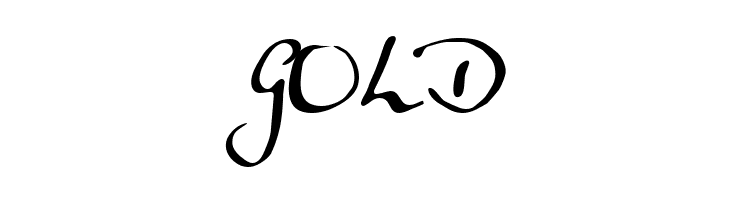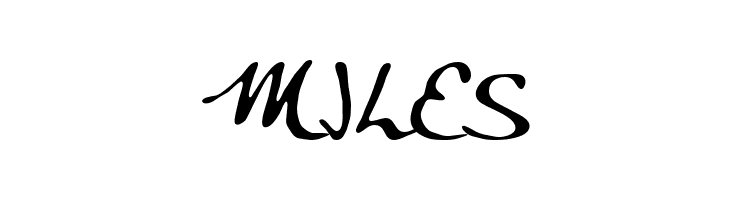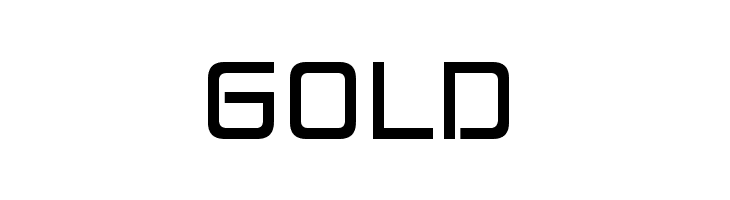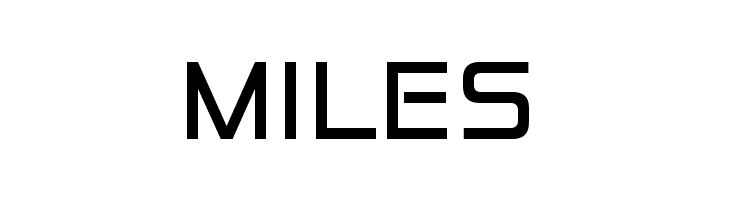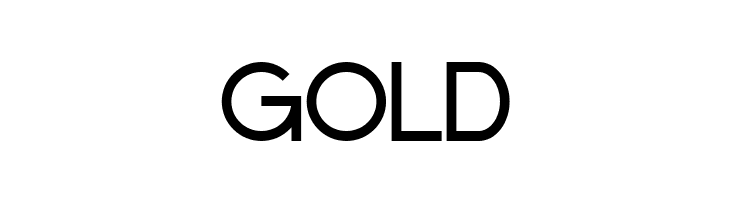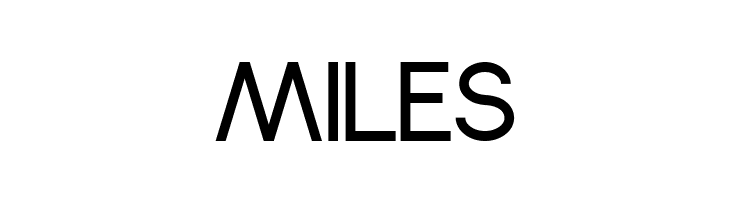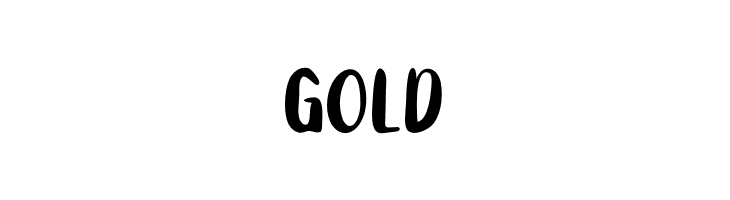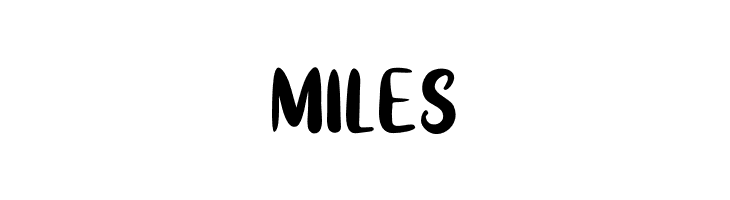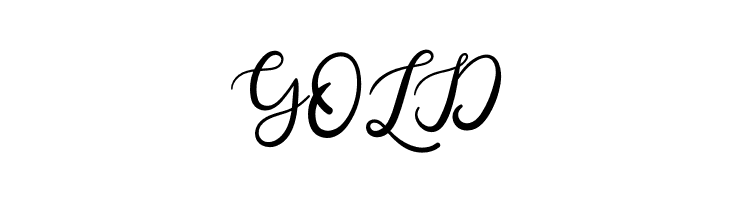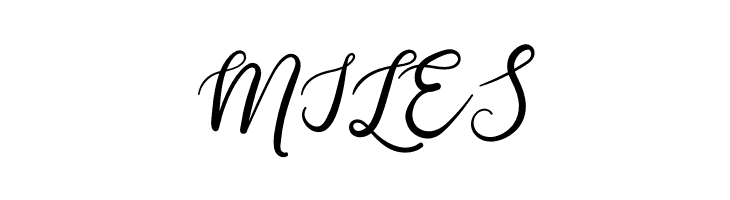
( Fonts by Brithos Type - Personal-use only. For commercial use please contact owner. ) A flowing, cursive script font with elegant loops and swashes. Download 47 Downloads@WebFont
( Fonts by Patria Ari Typestudio - Patria Ari - Personal-use only. For commercial use please contact owner. ) A modern, geometric sans-serif font with clean lines and balanced proportions. Download 66 Downloads@WebFont
( Fonts by Gustavo Paz - Personal-use only. For commercial use please contact owner. ) A modern, geometric font with a semi-square structure and uniform stroke width. Download 1714 Downloads@WebFont
( Fonts by Asd Studio - Ghazi Humam Fauzan - Personal-use only. For commercial use please contact owner. ) A graceful script font with flowing, interconnected strokes and high contrast. Download 63 Downloads@WebFont
( Fonts by Colative Studio - Personal-use only. For commercial use please contact owner. ) A dynamic and elegant script font with fluid, connected letterforms. Download 37 Downloads@WebFont
( Fonts by Rafaela de Conto - Personal-use only. For commercial use please contact owner. ) A bold, geometric font with high contrast and artistic design elements. Download 47 Downloads@WebFont
( Fonts by Pen Culture - Revo Farisky - Personal-use only. For commercial use please contact owner. ) A dynamic and fluid script font with elegant, flowing strokes. Download 93 Downloads@WebFont
( Fonts by PutraCetol Studio - www.putracetol.com - Personal-use only. For commercial use please contact owner. ) A cursive, flowing font with elegant, sweeping lines and artistic flair. Download 26 Downloads@WebFont
( Fonts by Din Studio - Donis Miftahudin - Personal-use only. For commercial use please contact owner. ) A sophisticated script font with flowing, cursive characters and high contrast strokes. Download 633 Downloads@WebFont
( Fonts by Letterhend Studio - Hendry Juanda - Personal-use only. For commercial use please contact owner. ) A lively and flowing script font with elegant, interconnected letters. Download 70 Downloads@WebFont
( Fonts by HerDesign - Herman Syah - Personal-use only. For commercial use please contact owner. ) A modern, elegant script font with intricate loops and smooth curves. Download 36 Downloads@WebFont
( Fonts by StringLabs - stringlabscreative.com - Personal-use only. For commercial use please contact owner. ) A whimsical, handwritten font with flowing, interconnected letters and dynamic strokes. Download 32 Downloads@WebFont
( Fonts by 611 Studio - Rijal Muttaqin - Personal-use only. For commercial use please contact owner. ) A modern, geometric sans-serif font with excellent readability. Download 121 Downloads@WebFont
( Sudar Moko ) A modern, geometric sans-serif font with smooth, rounded edges. Download 357 Downloads@WebFont
( Fonts by Masanis Studio - Naufal Anis - Personal-use only. For commercial use please contact owner. ) A graceful and elegant script font with fluid, cursive strokes. Download 41 Downloads@WebFont
( Fonts by StringLabs - stringlabscreative.com - Personal-use only. For commercial use please contact owner. ) A flowing, cursive script font with elegant, interconnected characters. Download 23 Downloads@WebFont
( Fonts by StringLabs - stringlabscreative.com - Personal-use only. For commercial use please contact owner. ) A flowing, elegant script font with interconnected cursive letters. Download 252 Downloads@WebFont
( Fonts by blue studio09 - Personal-use only. For commercial use please contact owner. ) A modern, elegant script font with flowing cursive letterforms. Download 402 Downloads@WebFont
( Fonts by blue studio09 - Personal-use only. For commercial use please contact owner. ) A bold, playful handwritten font with rounded, slightly irregular letterforms. Download 499 Downloads@WebFont
( Fonts by Supersemar Letter - Arief Tri Sulistiyono - Personal-use only. For commercial use please contact owner. ) A playful and elegant script font with flowing, cursive letterforms. Download 31 Downloads@WebFont
( Fonts by Syaf Rizal - www.creativefabrica.com/ref/53/ - Personal-use only. For commercial use please contact owner. ) A dynamic, fluid script font with an elegant, handwritten style. Download 768 Downloads@WebFont
( Fonts by Khurasan - Syaf Rizal - Personal-use only. For commercial use please contact owner. ) A lively, cursive font with a handwritten feel, perfect for creative projects. Download 42 Downloads@WebFont
( Personal-use only. For commercial use please contact owner. ) A bold, condensed monospaced font ideal for coding and technical use. Download 288 Downloads@WebFont
( Personal-use only. For commercial use please contact owner. ) A bold, italicized, and condensed font with a modern and dynamic style. Download 87 Downloads@WebFont
( Personal-use only. For commercial use please contact owner. ) A sleek, condensed italic font with a modern and dynamic style. Download 37 Downloads@WebFont
( Fonts by Typodermic Fonts - Raymond Larabie - Personal-use only. For commercial use please contact owner. ) A bold, geometric font with a modern and edgy style. Download 30 Downloads@WebFont
( Fonts by Eko Bimantara - Personal-use only. For commercial use please contact owner. ) A bold, classic serif font with strong, pronounced strokes and well-defined serifs. Download 242 Downloads@WebFont